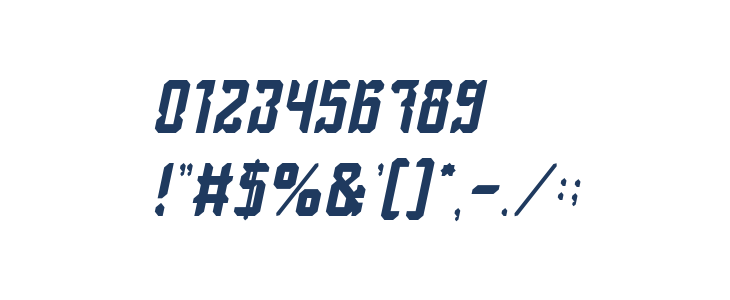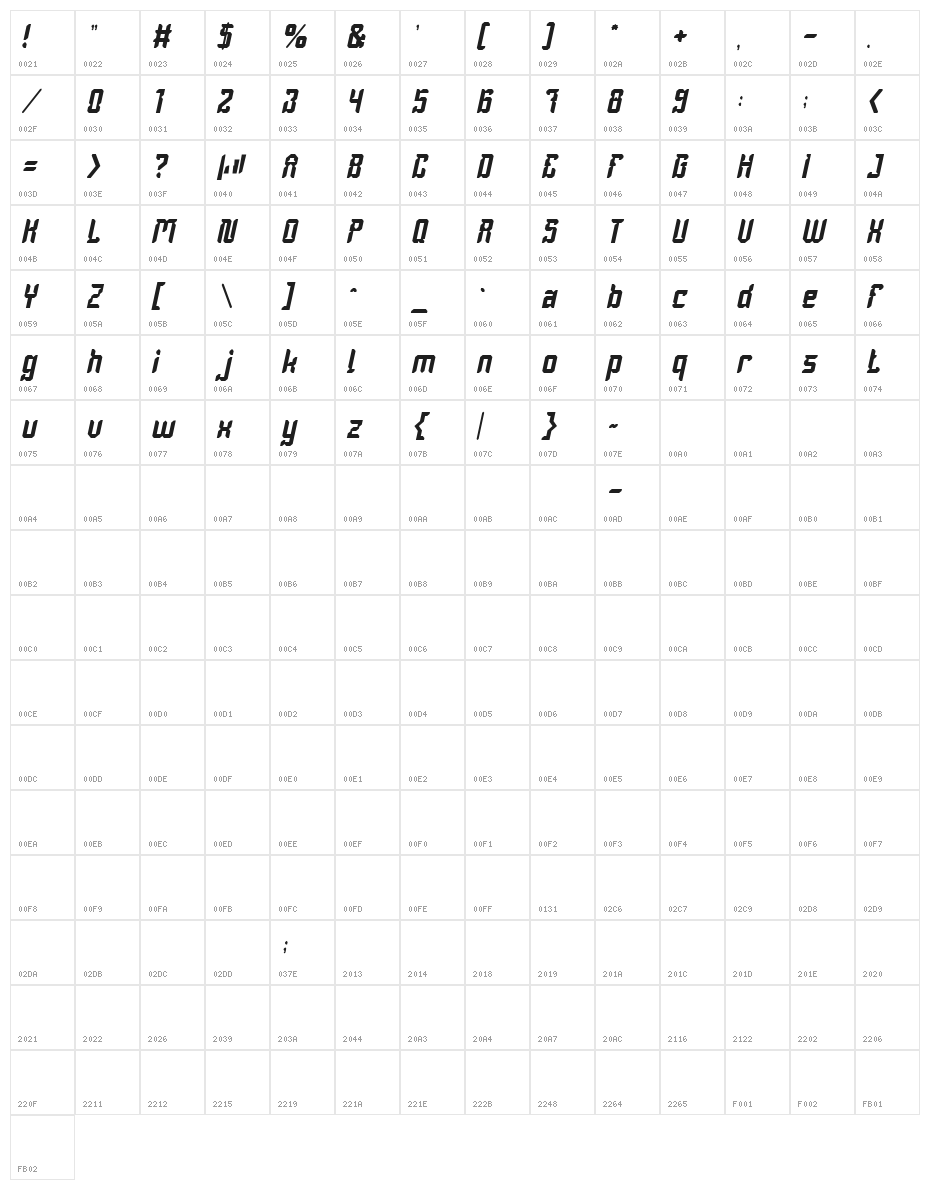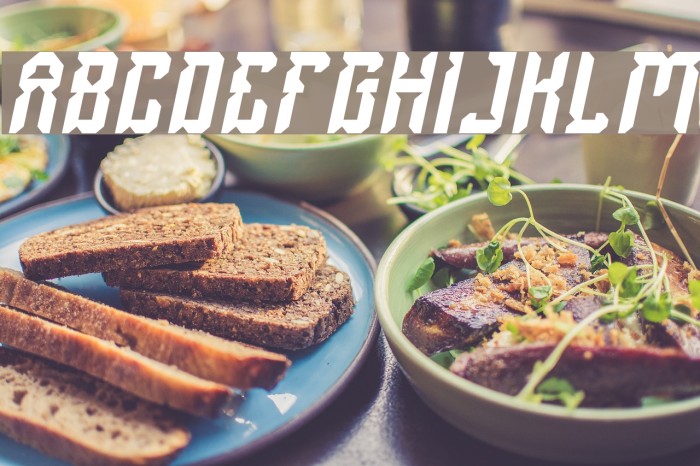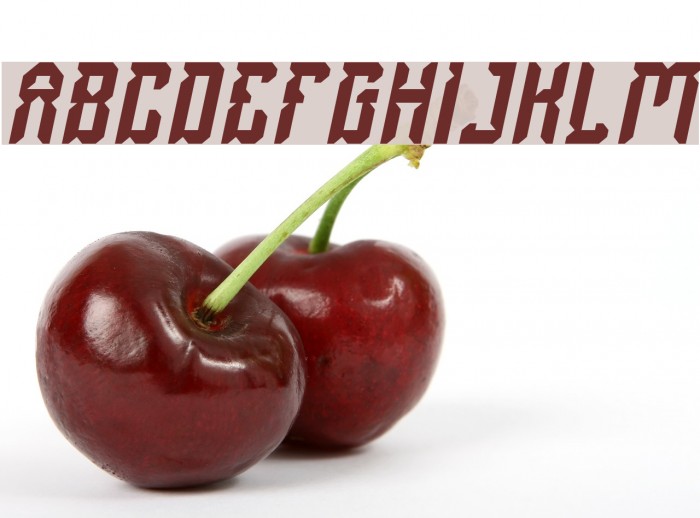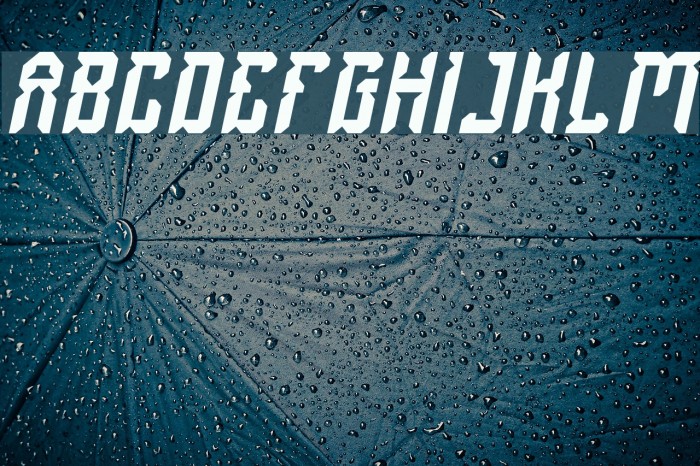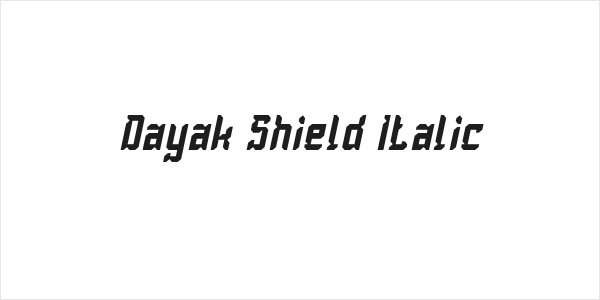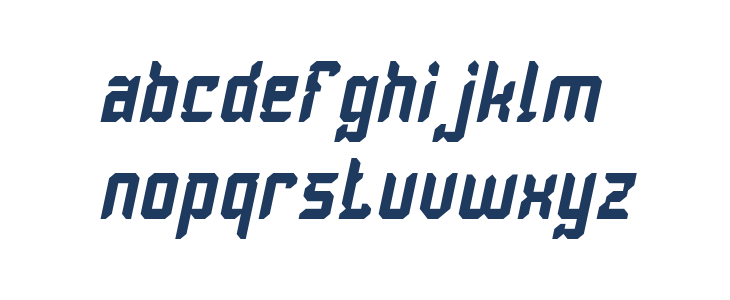
Dayak Shield Italic Font
Dayak Shield Italic Description
This font features a bold and angular design with a distinct italic slant, giving it a dynamic and energetic appearance. The characters are constructed with sharp edges and a geometric style, creating a sense of movement and modernity. The uppercase and lowercase letters maintain a consistent style, with the lowercase letters slightly more condensed. Numbers and special characters follow the same angular and bold design, ensuring uniformity across all elements. The font's unique style makes it stand out, with a strong presence that is ideal for attention-grabbing designs.
| Proposed Projects | Ideal for sports branding, dynamic posters, edgy logos, and modern digital interfaces. |